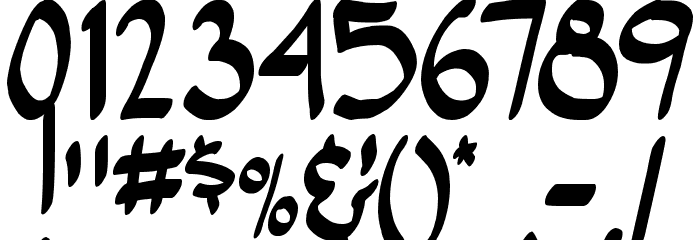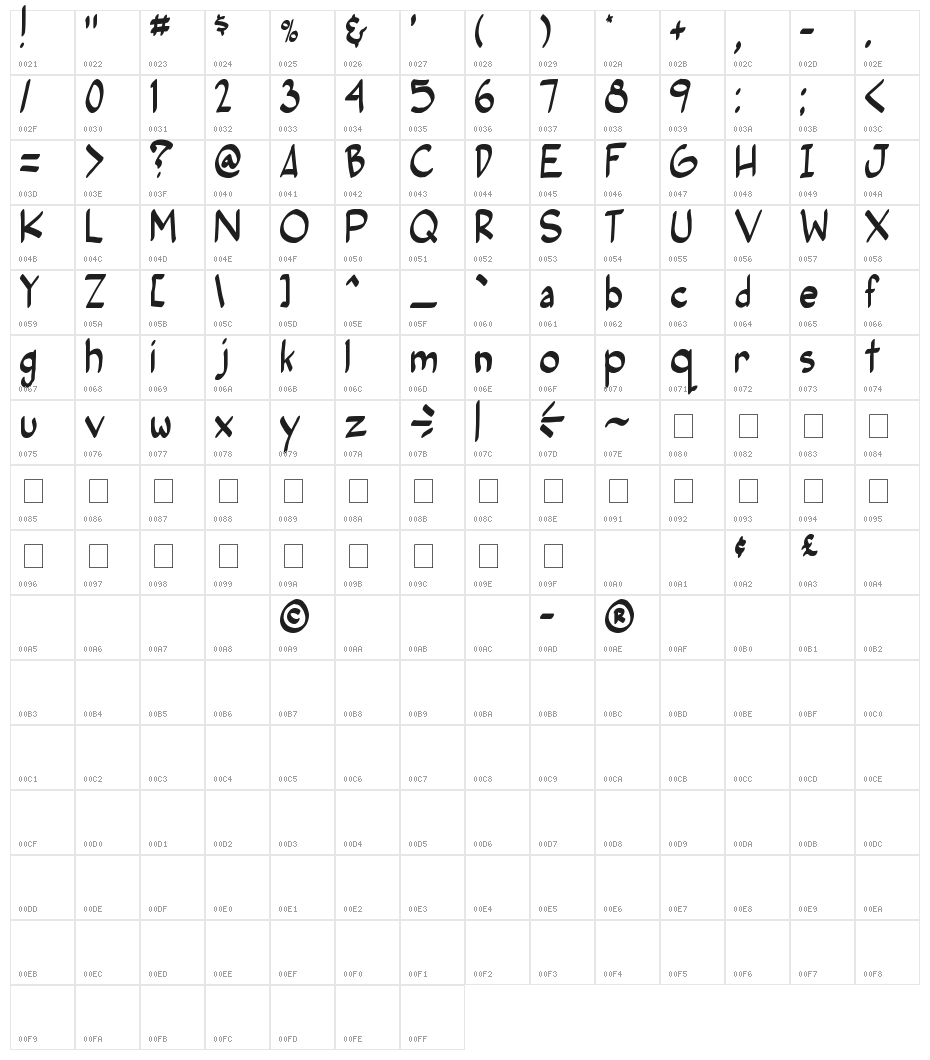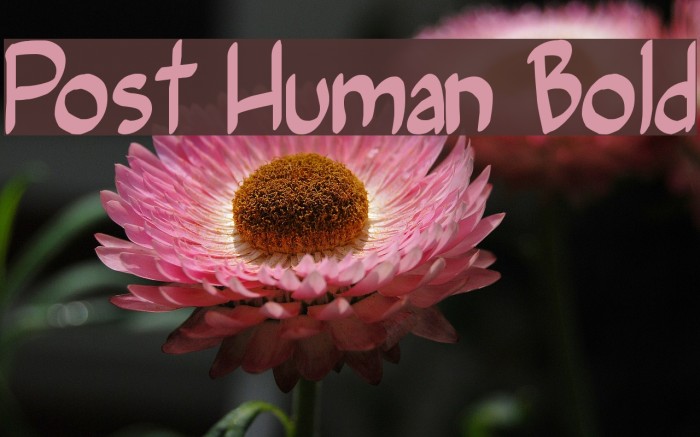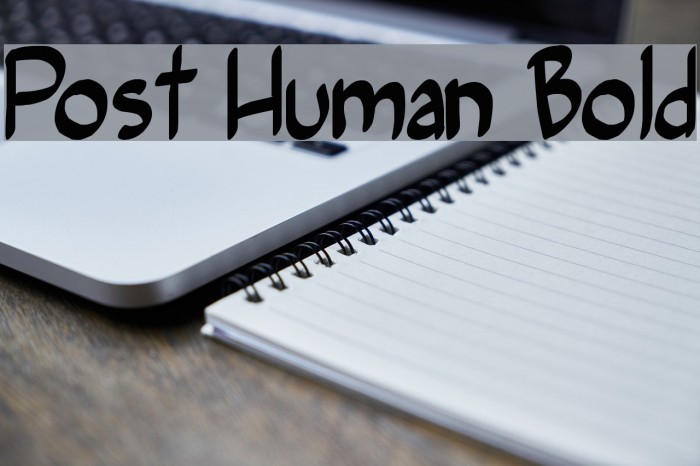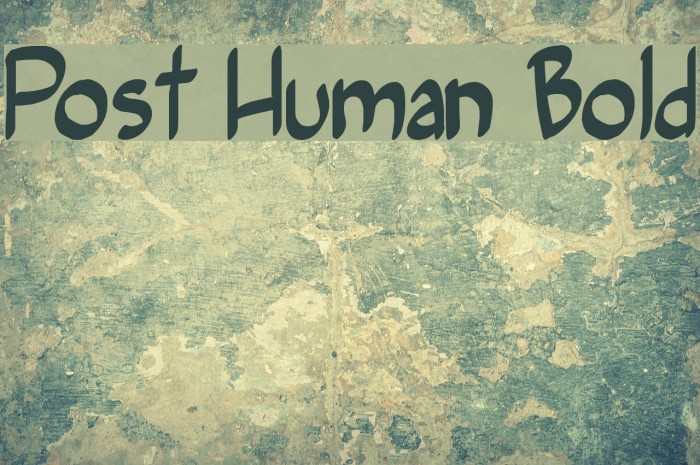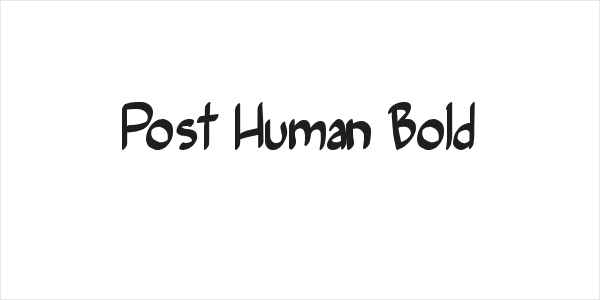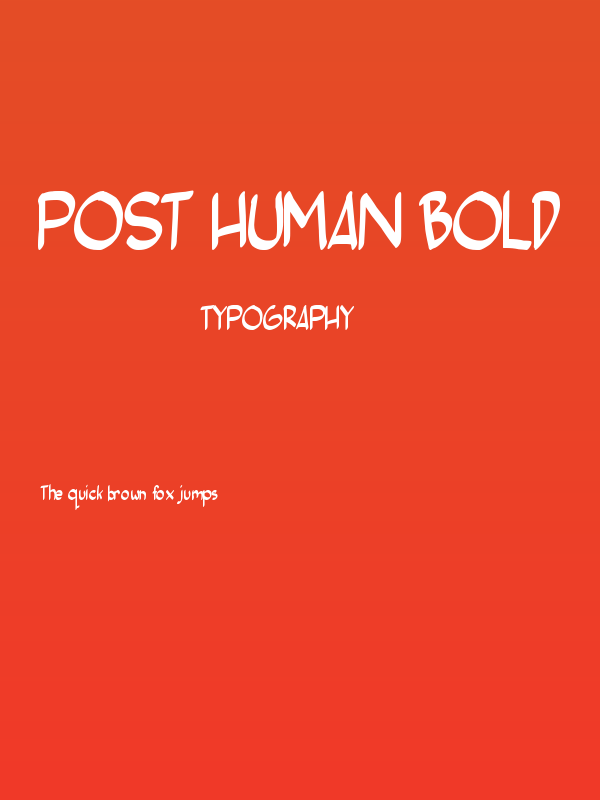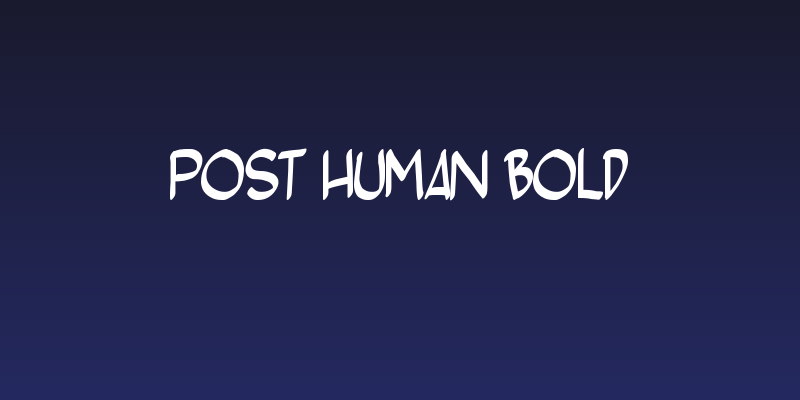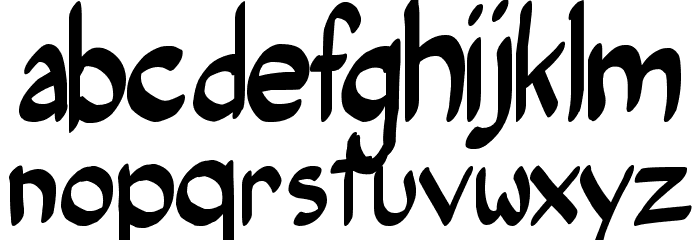
Post Human Bold Font
Post Human Bold Description
This font exhibits a bold and dynamic style with a playful, handwritten appearance. The characters are slightly irregular, giving it a unique and organic feel. The uppercase and lowercase letters maintain a consistent weight, contributing to its boldness. The numerals and special characters follow the same design principles, ensuring uniformity across all glyphs. The font's strokes are thick and rounded, adding to its friendly and approachable aesthetic. It is well-suited for projects that require a personal touch or a casual vibe.
| Overall Style | Playful, Casual |
| Proposed Projects | Ideal for children's books, casual branding, playful posters, and creative invitations. |